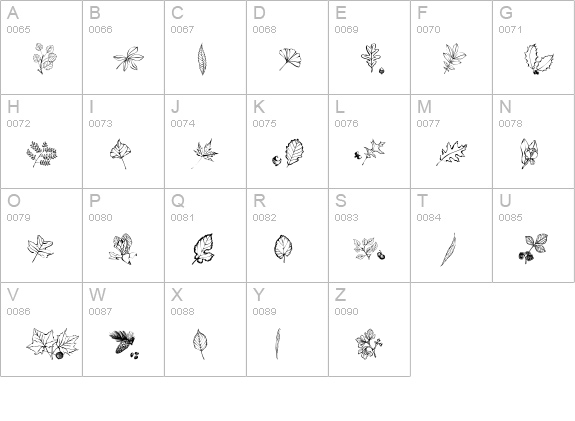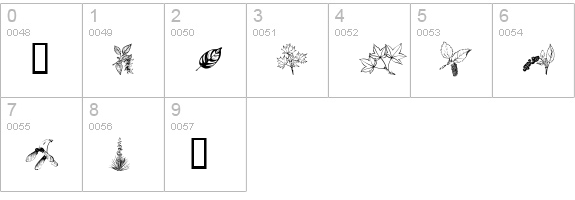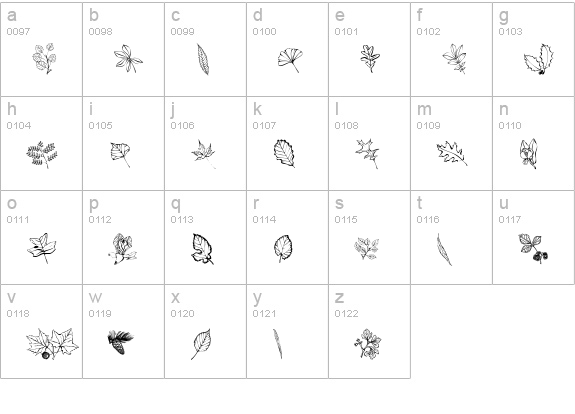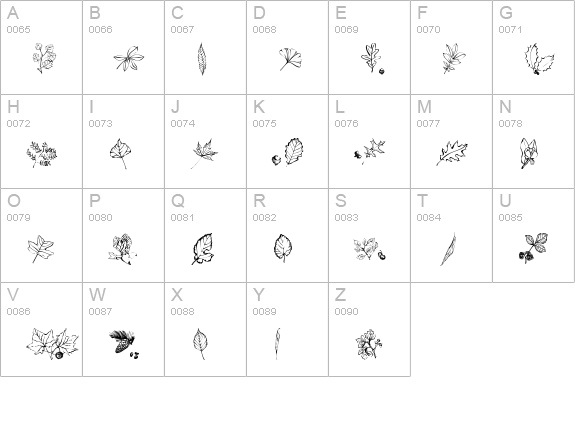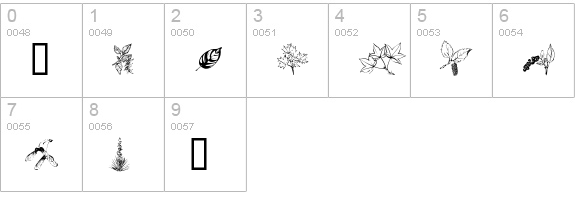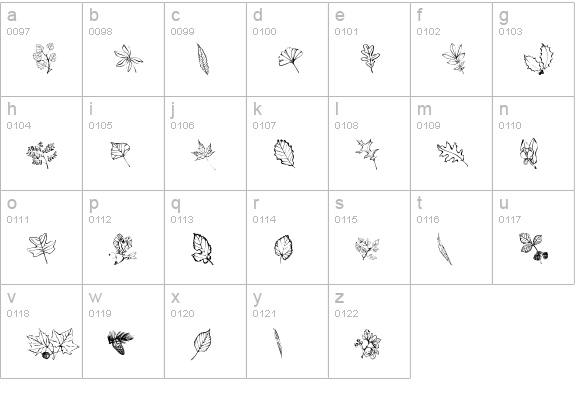
ArborisFolium Font Details
ArborisFolium is a beautifully crafted font that exudes elegance and sophistication. With its delicate curves and intricate details, this font is perfect for adding a touch of refinement to any design project. The flowing lines and graceful flourishes of ArborisFolium give it a timeless appeal that is sure to captivate any audience. What sets ArborisFolium apart is not just its stunning design, but also the fact that it is completely free to use. That's right, this exquisite font is available for download at FontsMarket.com at no cost, making it a valuable addition to any designer's toolkit. Whether you're working on a branding project, a wedding invitation, or a website design, ArborisFolium is the perfect choice for adding a touch of elegance and sophistication. Download it today and elevate your designs to new heights with this stunning font.